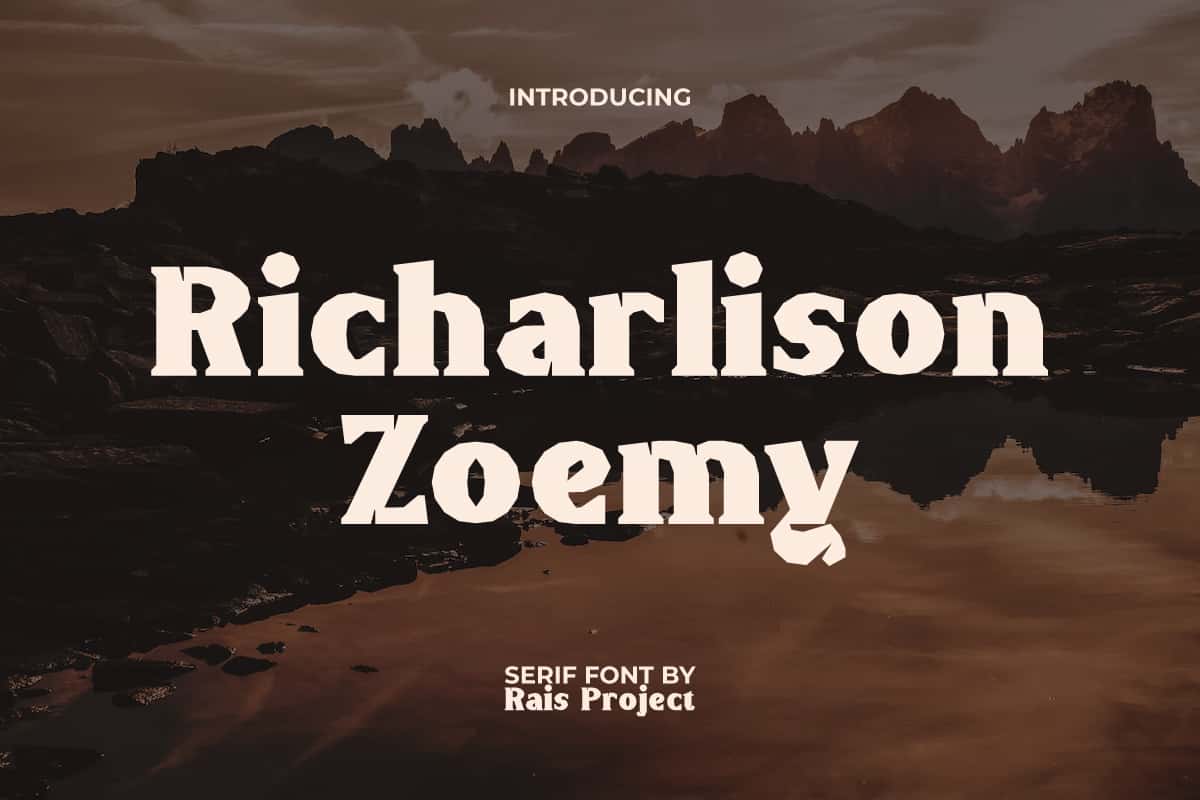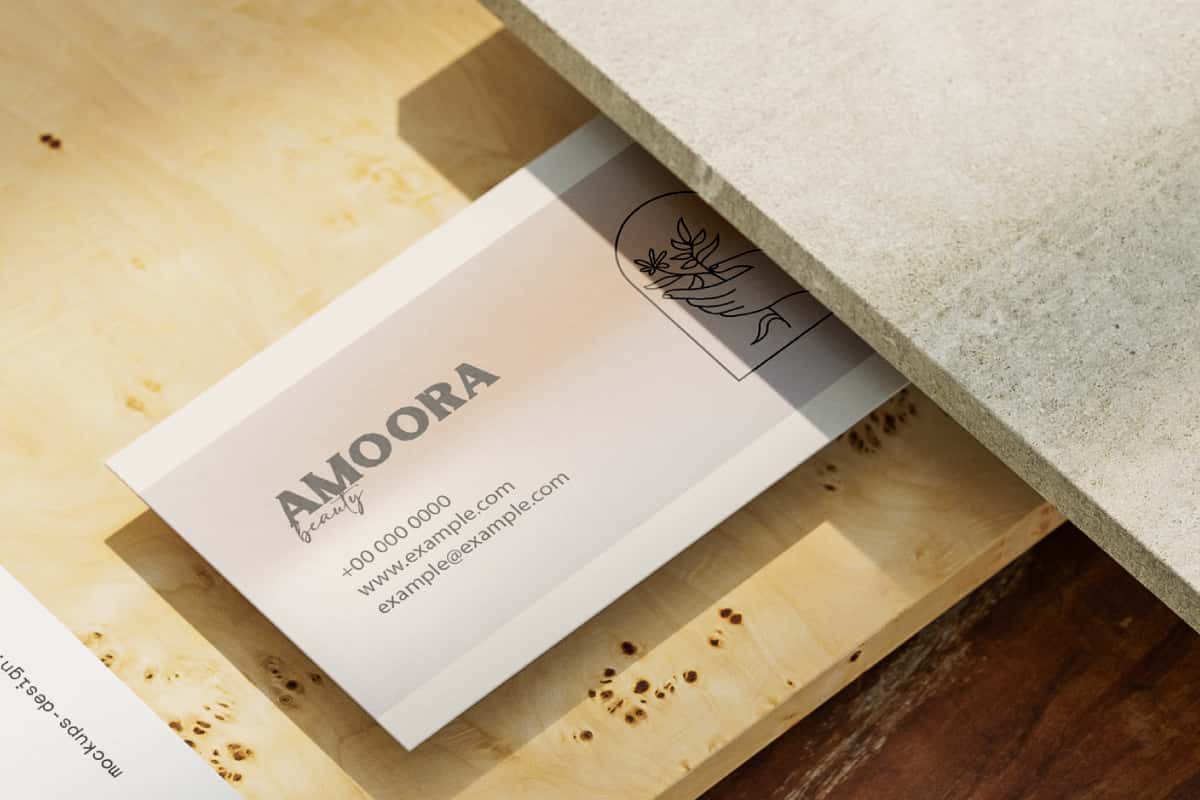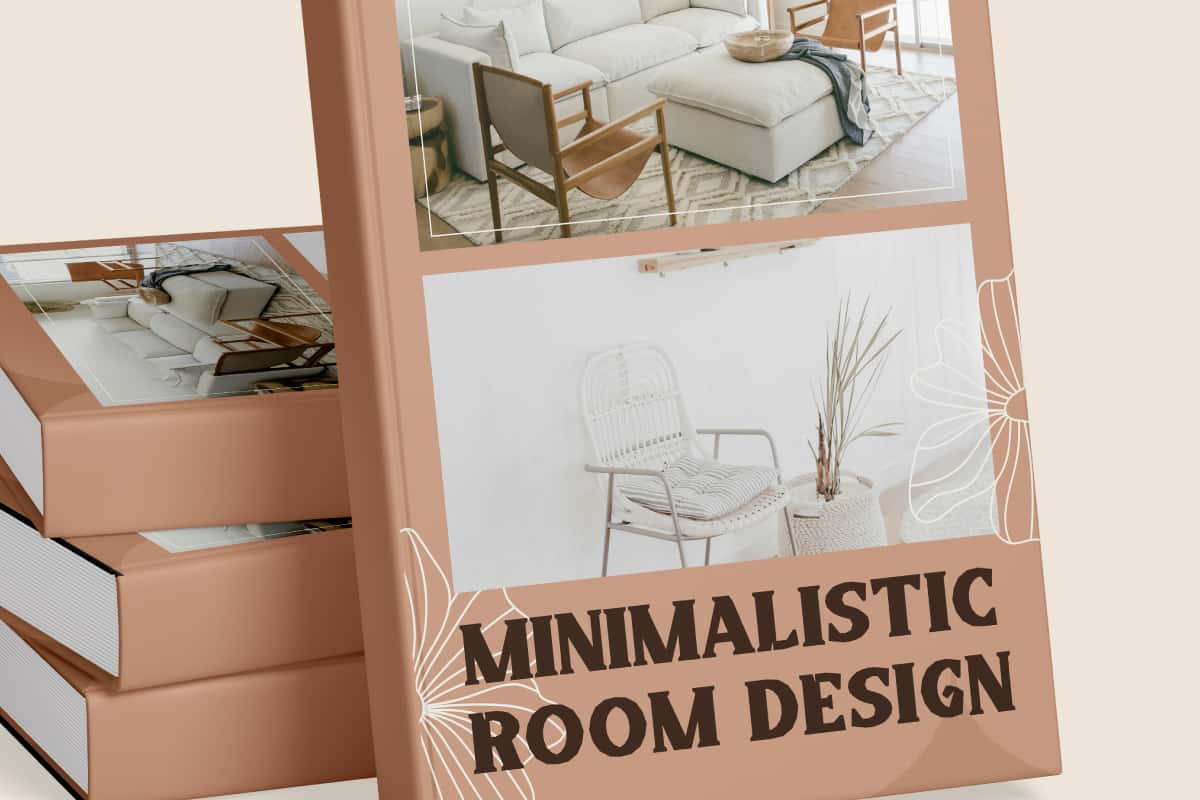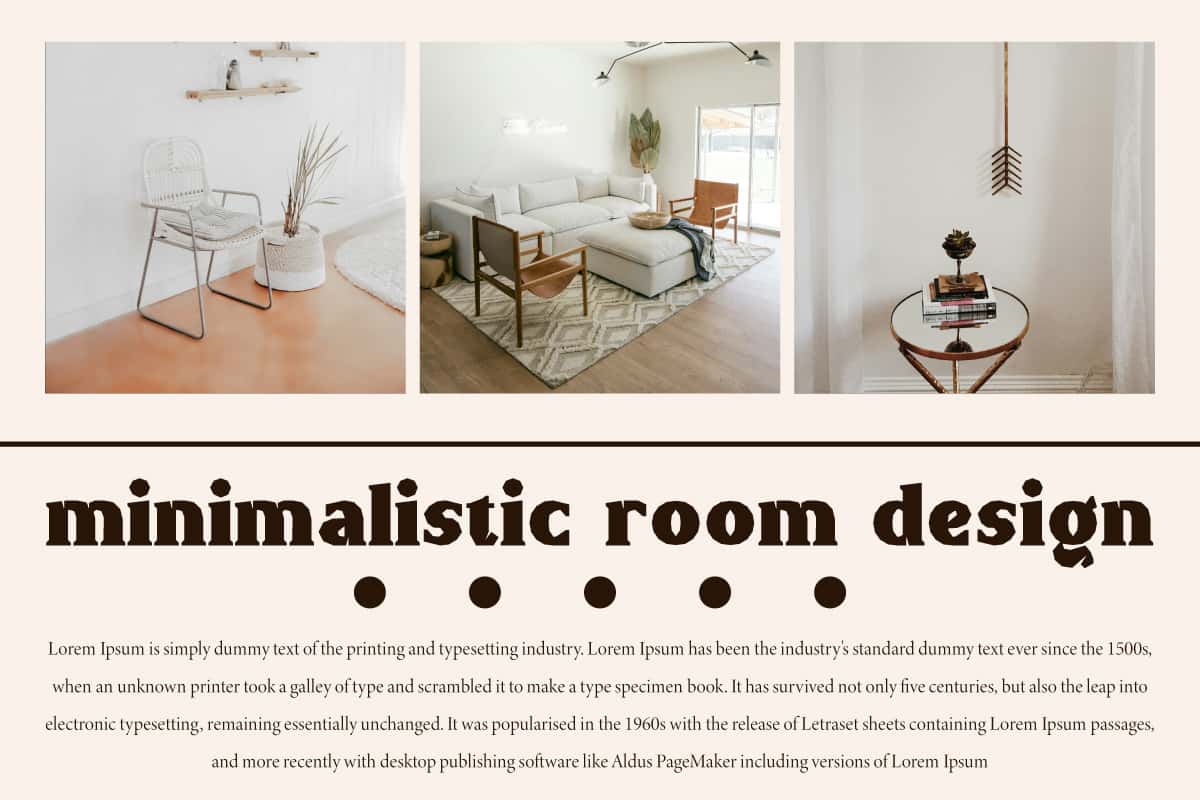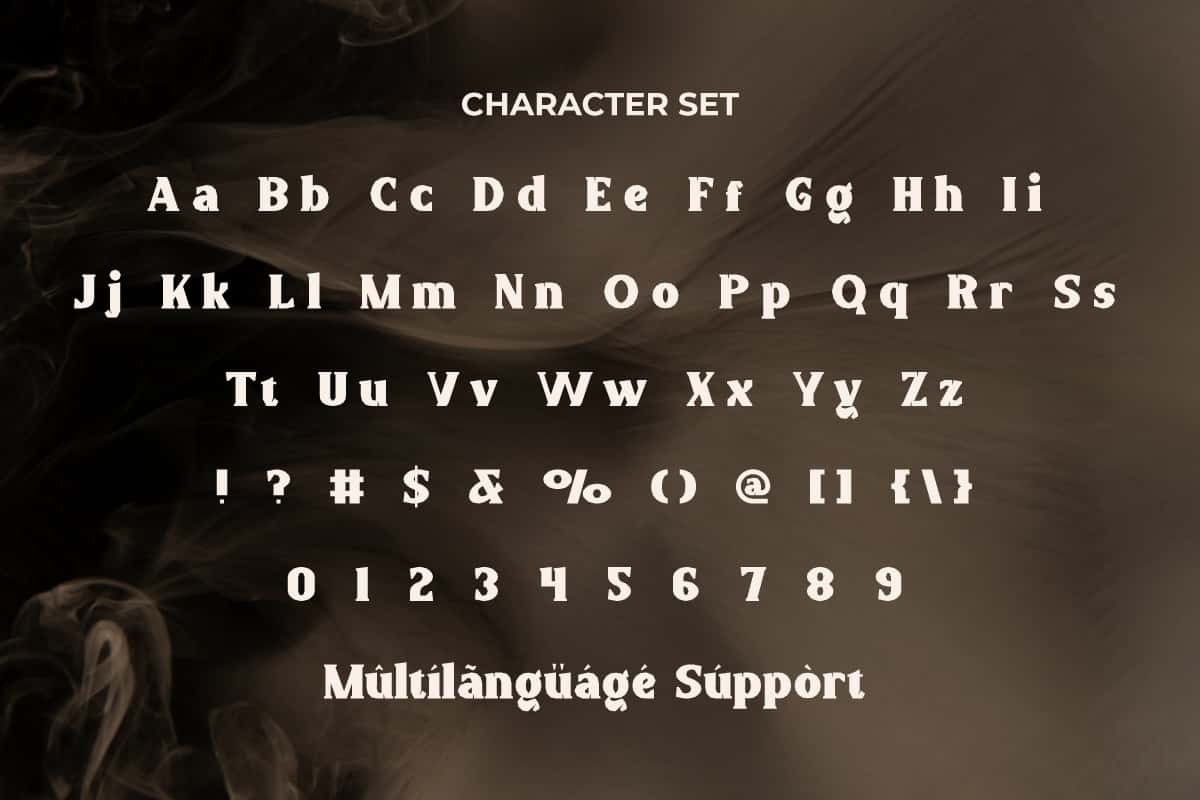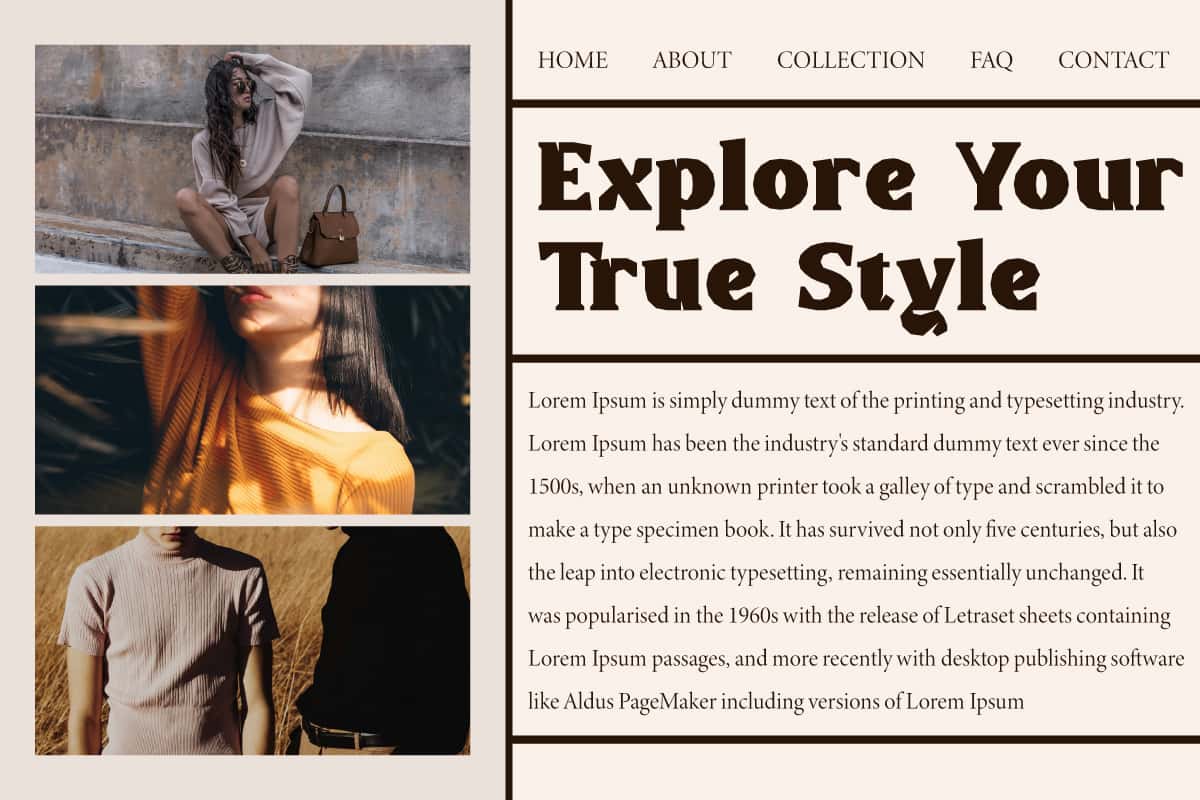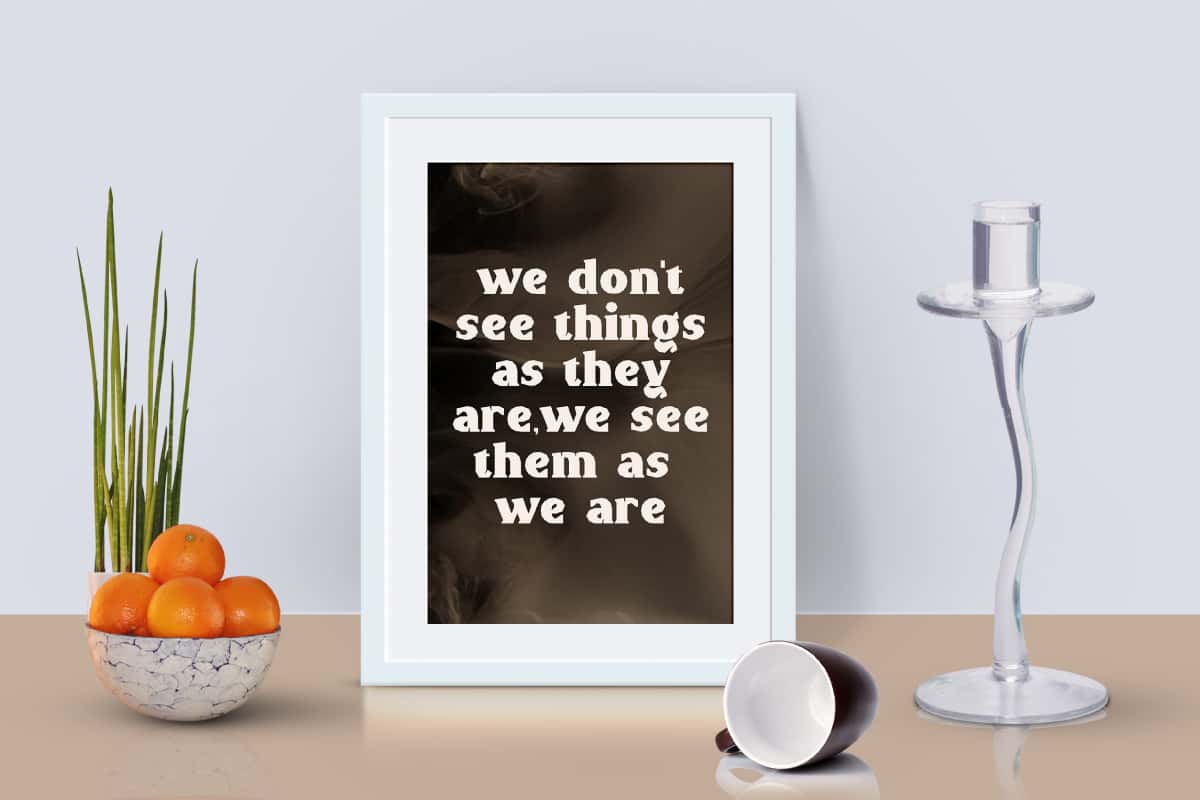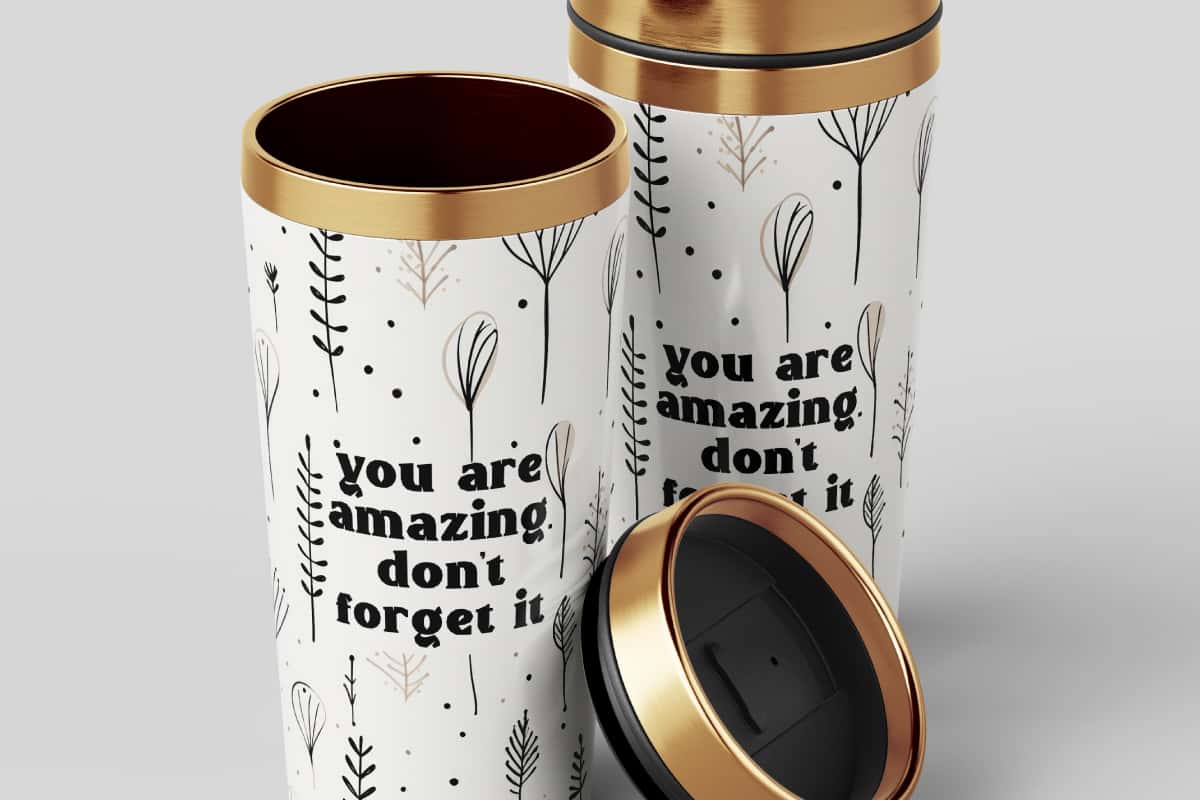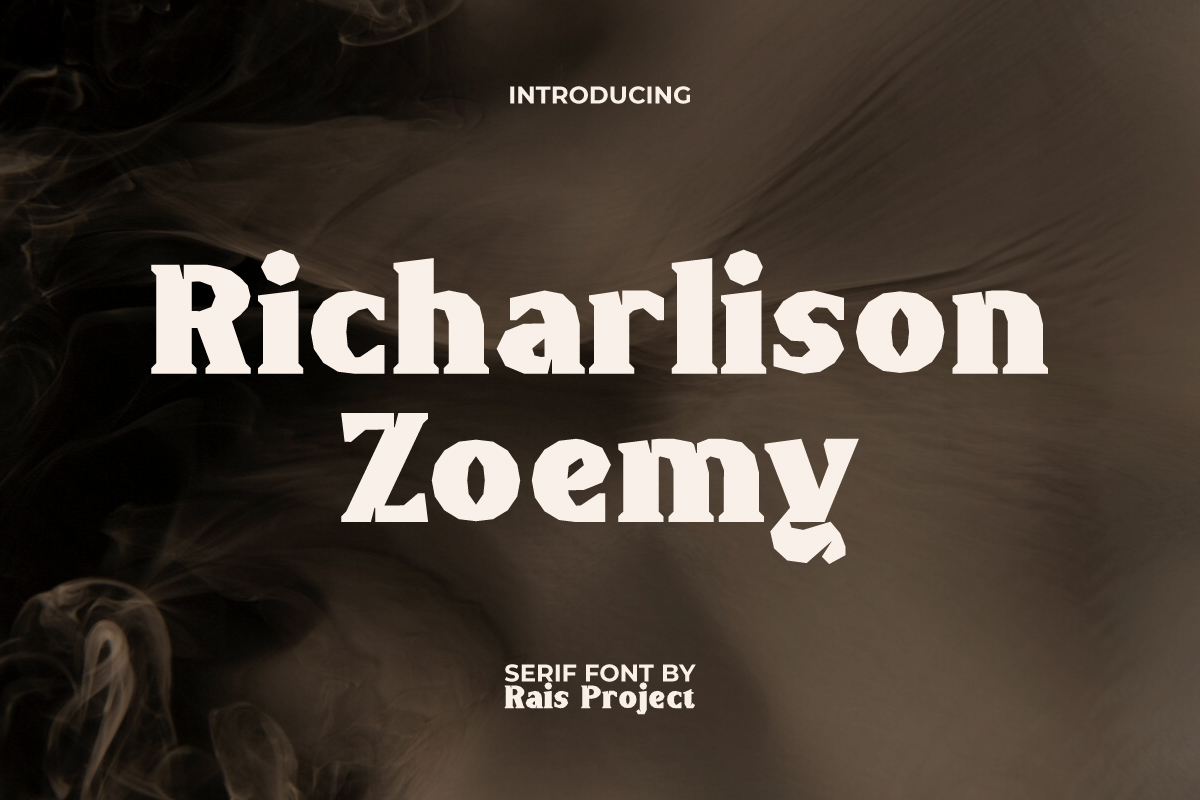
Richarlison Zoemy Font a bold serif display font inspired by popular dinosaurs movies.It will look good on invitation, stationery, poster, custom design, product packaging, quotes, signage, brand image, advertisement, label, marketing material, and more! You can see the demo font below, input any word you want so you can see what it looks like: